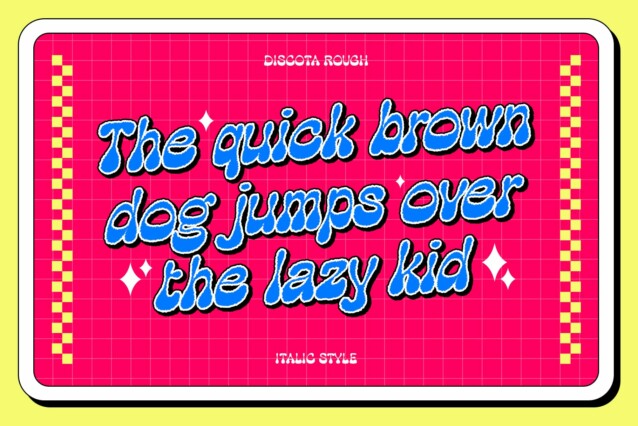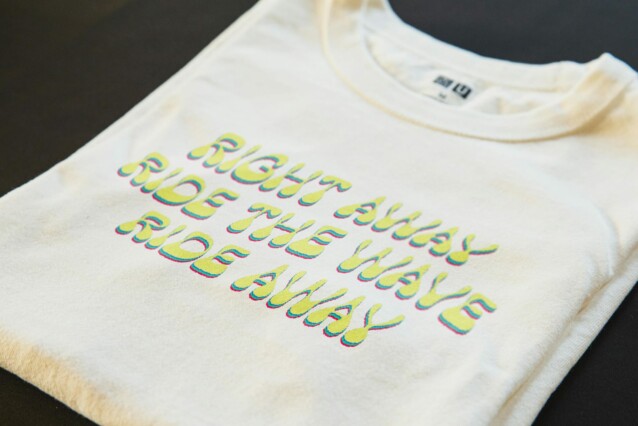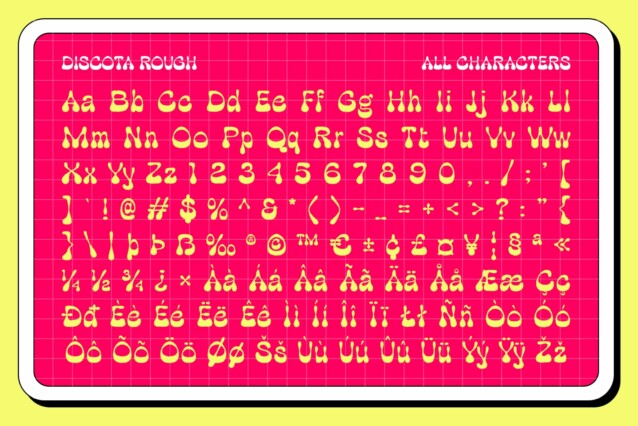
Discota Rough Font
Discota Rough Font is a display font that features a psychedelic design, funky bubble retro shapes, and a rough effect, making it perfect for designs aiming to showcase creativity and uniqueness. Its bold and unconventional style adds a dynamic flair to any project.
Distinctive Retro Vibe
Combining psychedelic elements with funky bubble shapes, Discota Rough evokes a distinctive retro vibe that captivates attention. The font’s playful and energetic design brings a nostalgic yet modern twist to your designs.